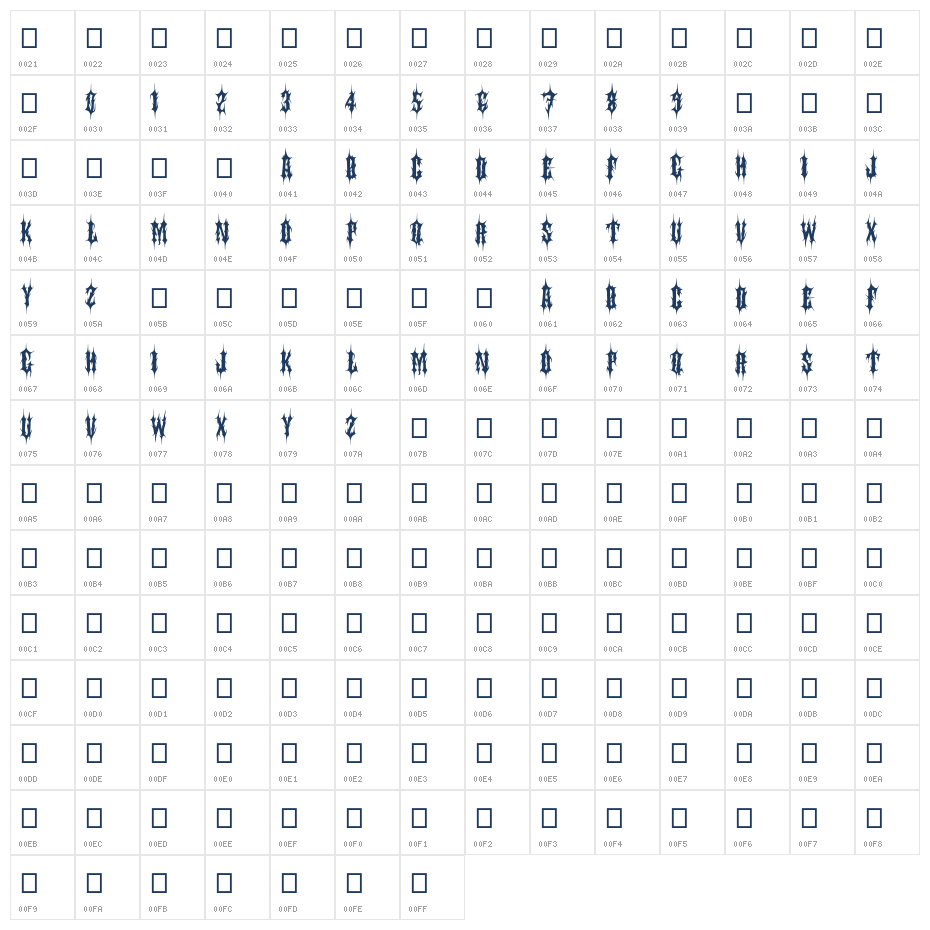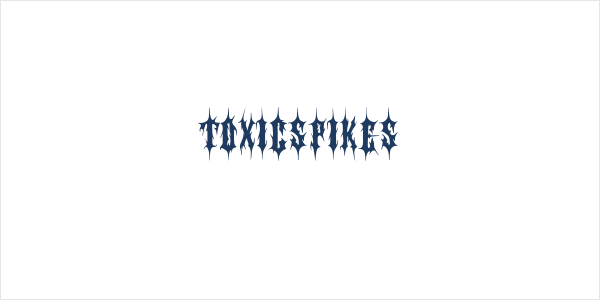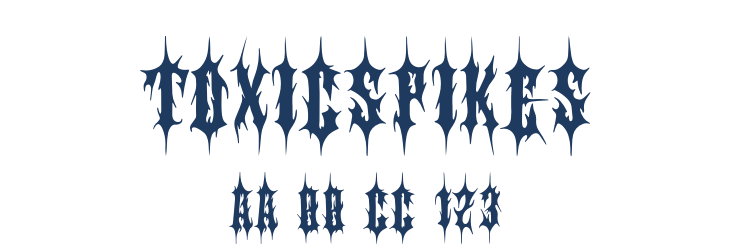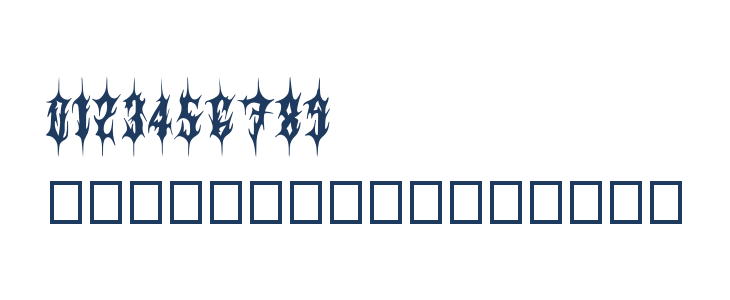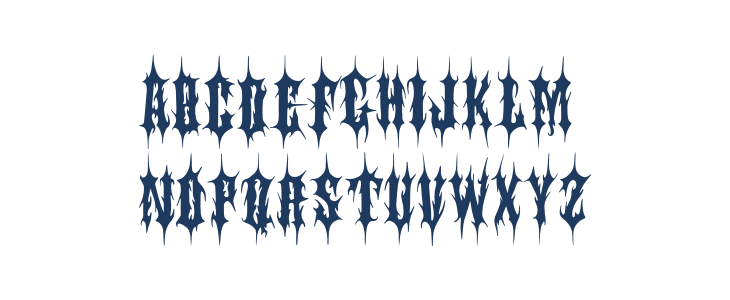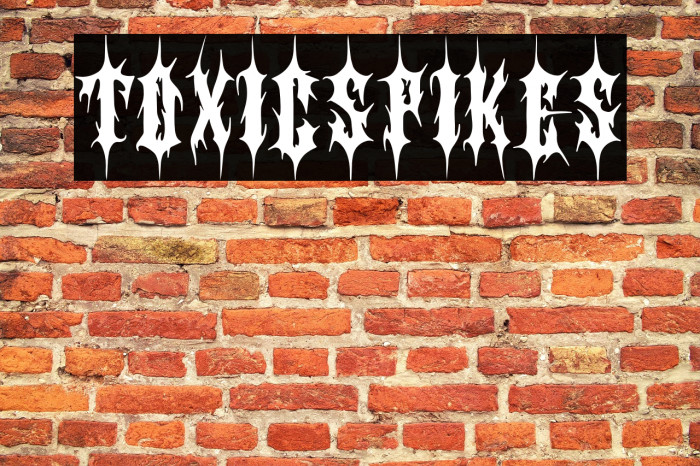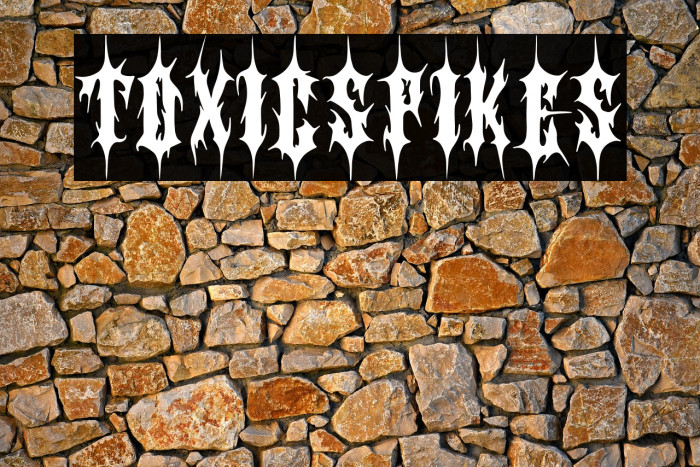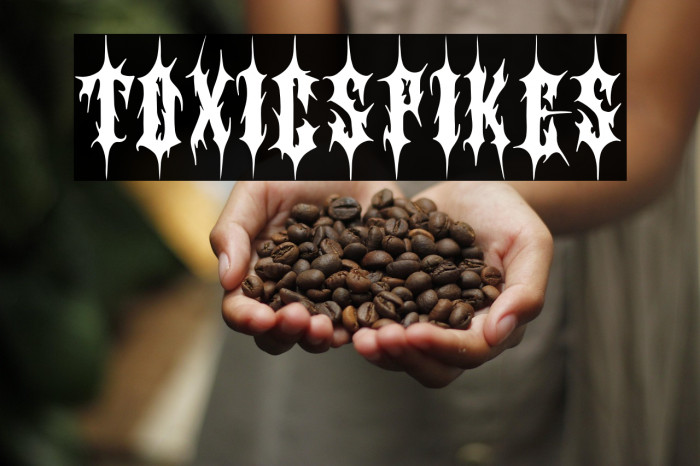
ToxicSpikes Font
ToxicSpikes Description
A decorative, gothic-style font with sharp, pointed edges and intricate details, resembling a medieval or horror-themed typeface.
| Overall Style | Gothic, Medieval, Horror |
| Use Case | Headlines, Titles, Logos, Posters |